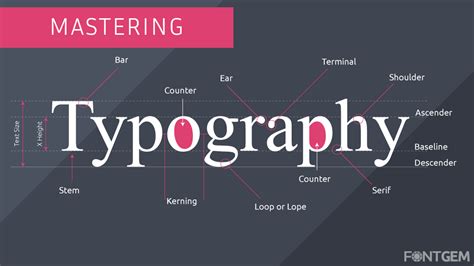
Mastering Word Fonts: A Comprehensive Guide
Hey guys! Ever wondered how to make your Word documents pop? It all starts with understanding the amazing world of fonts! In this comprehensive guide, we’re going to dive deep into Word fonts , exploring everything from the basics to advanced techniques. Get ready to transform your documents from drab to fab!
Understanding the Basics of Word Fonts
Let’s kick things off with the fundamentals. When we talk about fonts in Word , we’re referring to the different typefaces available that determine how your text looks. Choosing the right font can significantly impact the readability and overall aesthetic of your document. Think of fonts as the clothes your words wear – you want them to be appropriate for the occasion!
Word comes pre-loaded with a ton of fonts, and you can also install even more! To access these fonts, simply head over to the ‘Home’ tab in Word. Look for the font selection box, usually located in the top-left area of the ribbon. Click the dropdown arrow, and voilà ! A whole universe of fonts unfolds before your eyes. Arial, Times New Roman, Calibri – these are just a few of the classics you’ll find.
But how do you actually use these fonts? Easy peasy! First, select the text you want to change. Then, click on your desired font in the dropdown menu. Watch as your text magically transforms! You can also set a default font for all new documents. Go to ‘Format’ then ‘Font’. Select the font, size, and style you want, then click ‘Default’. This saves you time and ensures consistency across all your future projects.
Font size is another crucial element. It’s measured in points, and the right size depends on your document’s purpose. For body text, something between 10 and 12 points usually works well. Headings, of course, should be larger to stand out. Experiment and see what looks best for your specific needs. Don’t be afraid to play around until you find the perfect combination!
Moreover, you can also adjust the font style . This includes options like bold , italic , and underline. Use these sparingly to emphasize key points or add a touch of flair. Overdoing it can make your document look cluttered and unprofessional, so moderation is key! Think of it as adding spices to a dish – a little goes a long way.
Exploring Different Font Categories
Now that we’ve covered the basics, let’s delve into the different categories of fonts. Understanding these categories can help you make informed decisions about which fonts to use in various situations. There are primarily two main categories: serif and sans-serif fonts.
Serif fonts are characterized by small decorative strokes at the ends of the letters. These strokes are called serifs, hence the name. Times New Roman, Garamond, and Georgia are classic examples of serif fonts. They are often used in printed materials like books and newspapers because they are considered easy to read in large blocks of text. The serifs help guide the eye along the line, improving readability.
On the other hand, sans-serif fonts lack these decorative strokes. Arial, Helvetica, and Calibri are popular sans-serif fonts. They have a cleaner, more modern look and are often preferred for digital displays and headings. Sans-serif fonts tend to appear clearer on screens, making them a good choice for websites and presentations.
Beyond serif and sans-serif, there are also script fonts , which resemble handwriting. These are often used for invitations, certificates, and other formal documents where a touch of elegance is desired. However, script fonts can be difficult to read in large blocks of text, so use them sparingly and only for short phrases or titles.
Lastly, we have decorative fonts , which are designed to be eye-catching and unique. These fonts come in a wide variety of styles and are best used for logos, posters, and other visual elements where you want to make a statement. Be careful not to overuse decorative fonts, as they can easily overwhelm your document and make it look unprofessional.
Choosing the right font category depends on the purpose and audience of your document. For formal reports and academic papers, stick with serif fonts for the body text and sans-serif fonts for the headings. For websites and presentations, opt for sans-serif fonts for better readability on screens. And for special occasions, feel free to experiment with script and decorative fonts, but remember to use them sparingly and with purpose.
Advanced Font Techniques in Word
Ready to take your font game to the next level? Let’s explore some advanced techniques that can help you create truly stunning documents. One of the most powerful features in Word is the ability to customize your fonts in various ways. You can adjust the character spacing, kerning, and even create custom styles to ensure consistency throughout your document.
Character spacing refers to the amount of space between individual letters. By adjusting the character spacing, you can make your text appear more open and airy or more compact and dense. To access character spacing options, go to the ‘Font’ dialog box and click on the ‘Advanced’ tab. Here, you’ll find options to expand or condense the spacing between letters. Experiment with different settings to achieve the desired effect.
Kerning is another advanced technique that involves adjusting the space between specific pairs of letters. Some letter combinations, like ‘AV’ or ‘WA’, can appear too far apart, which can affect readability. Kerning allows you to manually adjust the spacing between these pairs to create a more visually appealing and balanced look. Word offers automatic kerning options, but you can also fine-tune the kerning manually for precise control.
Creating custom styles is a great way to ensure consistency throughout your document. Instead of manually formatting each heading and paragraph, you can create a style that defines the font, size, spacing, and other attributes. Then, you can apply this style to any text in your document with a single click. To create a custom style, go to the ‘Home’ tab and look for the ‘Styles’ section. Click on the ‘More’ button and select ‘Create a Style’. Give your style a name and define its attributes. Once you’ve created a style, you can easily apply it to any text in your document.
Another cool trick is using font pairing . This involves combining different fonts to create a visually appealing and harmonious look. A common approach is to pair a serif font for the body text with a sans-serif font for the headings. This creates a nice contrast and helps to differentiate the different sections of your document. There are many online resources that offer font pairing suggestions, so don’t be afraid to experiment and find combinations that you like.
Finally, don’t forget about embedding fonts . When you share your Word document with someone else, there’s a chance that they may not have the same fonts installed on their computer. This can cause the document to look different than you intended. To avoid this, you can embed the fonts in your document. This will ensure that the fonts are displayed correctly, regardless of whether the recipient has them installed. To embed fonts, go to ‘File’, then ‘Options’, then ‘Save’. Check the box that says ‘Embed fonts in the file’.
Troubleshooting Common Font Issues
Even with the best planning, you might run into some font-related issues. Let’s tackle a few common problems and how to fix them. One frequent headache is font substitution . This happens when Word can’t find a font used in your document and replaces it with a different font. This can throw off the formatting and make your document look wonky.
To avoid font substitution, make sure that the fonts you use are widely available or embed them in your document as we discussed earlier. If you encounter font substitution, you can try to manually replace the missing font with a similar font that is installed on your computer. Go to ‘Format’ then ‘Replace Fonts’. Select the missing font and the font you wish to replace it with. This might require some tweaking to get the formatting just right, but it’s better than nothing!
Another common issue is font corruption . This can happen if a font file becomes damaged or corrupted. Symptoms include garbled text, strange characters, and even crashes. If you suspect font corruption, try reinstalling the font. First, delete the font file from your computer. Then, reinstall it from the original source. This should fix any issues caused by the corrupted font file.
Sometimes, fonts may not display correctly due to compatibility issues. This can happen if you’re using an older version of Word or if the font is not compatible with your operating system. To resolve this, try updating Word to the latest version. You can also try converting the font to a different format, such as TrueType or OpenType. There are many online font converters that can help you with this.
Finally, keep an eye out for font licensing issues . Some fonts are free to use, while others require a license. Using a font without a proper license can have legal consequences. Make sure that you have the necessary licenses for all the fonts you use in your documents. There are many websites that offer free fonts with commercial licenses, so you can find plenty of options without breaking the bank.
Best Practices for Using Word Fonts
To wrap things up, let’s go over some best practices for using Word fonts . These tips will help you create professional-looking documents that are both visually appealing and easy to read.
First and foremost, choose fonts that are appropriate for your audience and purpose . Consider the tone and style of your document and select fonts that reflect those qualities. For formal documents, stick with classic serif and sans-serif fonts. For creative projects, you can experiment with more decorative fonts, but be sure to use them sparingly.
Limit the number of fonts you use in a single document . Using too many different fonts can make your document look cluttered and unprofessional. A good rule of thumb is to stick to two or three fonts at most. Use one font for the body text and another font for the headings. You can also use a third font for captions or other special elements.
Pay attention to font size and spacing . Make sure that your text is easy to read and that the spacing between lines and letters is appropriate. Use a font size that is large enough to be comfortable for the reader, and adjust the line spacing to improve readability. Also, be mindful of character spacing and kerning, as these can affect the overall appearance of your text.
Use bold and italic styles sparingly . These styles are great for emphasizing key points, but overusing them can make your document look cluttered and distracting. Use bold for headings and subheadings, and use italic for quotes and other special elements. Avoid using bold and italic together, as this can make your text difficult to read.
Be consistent with your formatting . Use the same fonts, sizes, and styles throughout your document. This will create a cohesive and professional look. Use Word’s styles feature to easily apply consistent formatting to your text. This will save you time and ensure that your document looks polished and professional.
By following these best practices, you can master the art of using Word fonts and create documents that are both visually appealing and effective. So go forth and experiment, and have fun exploring the wonderful world of fonts! You’ve got this!